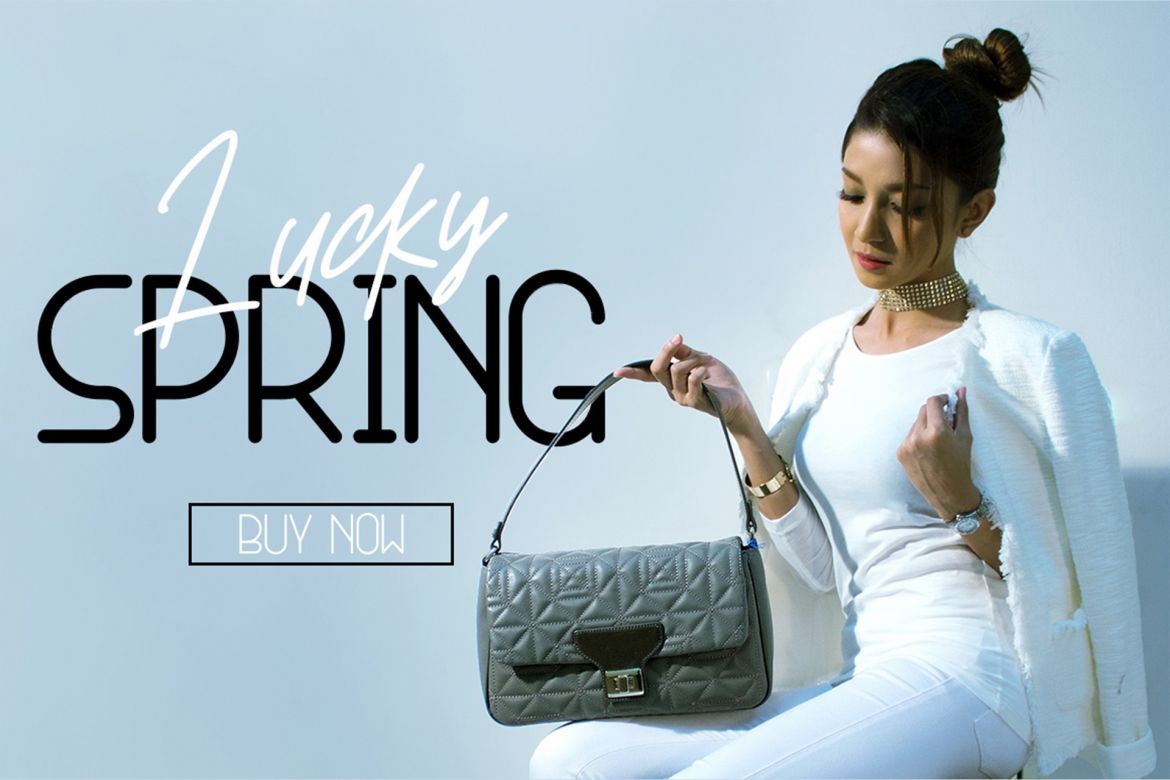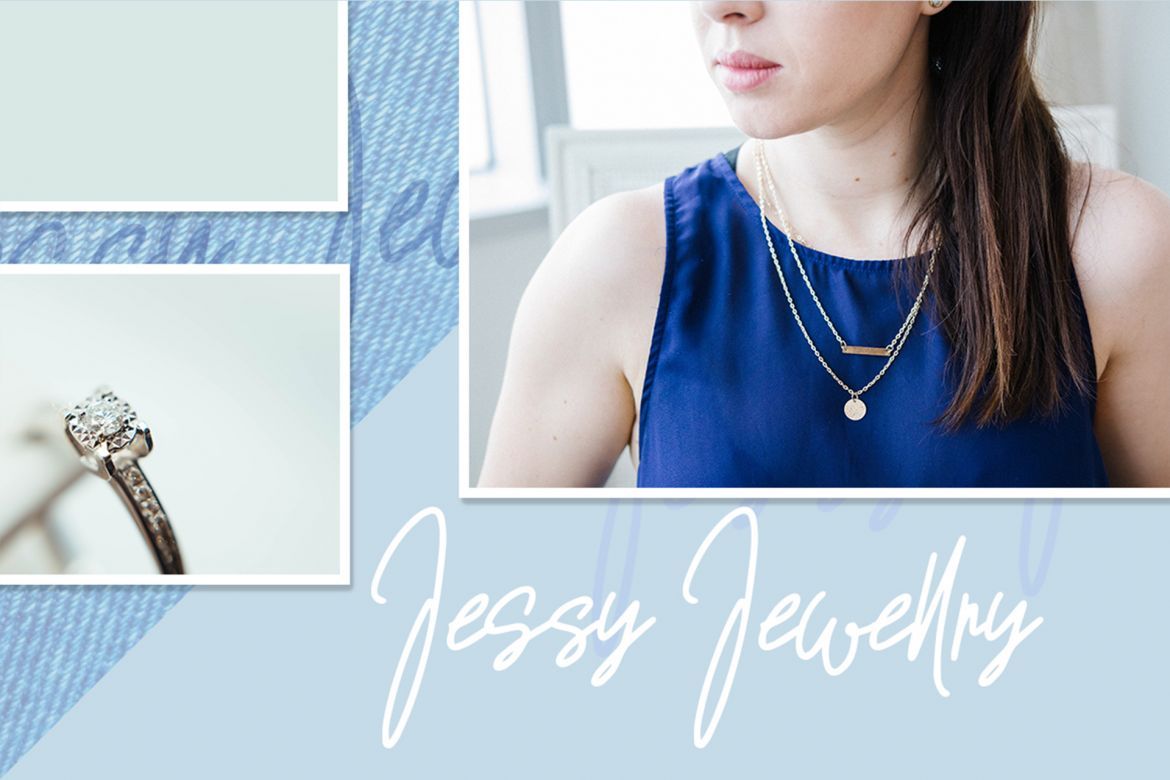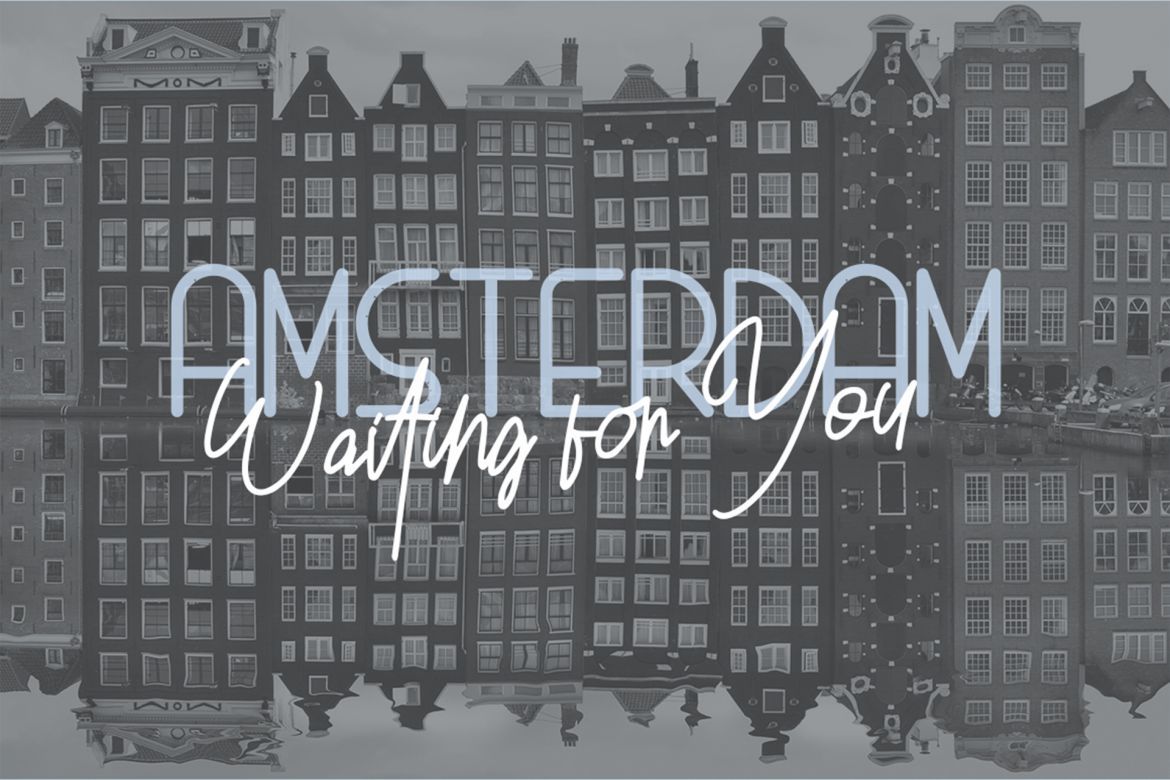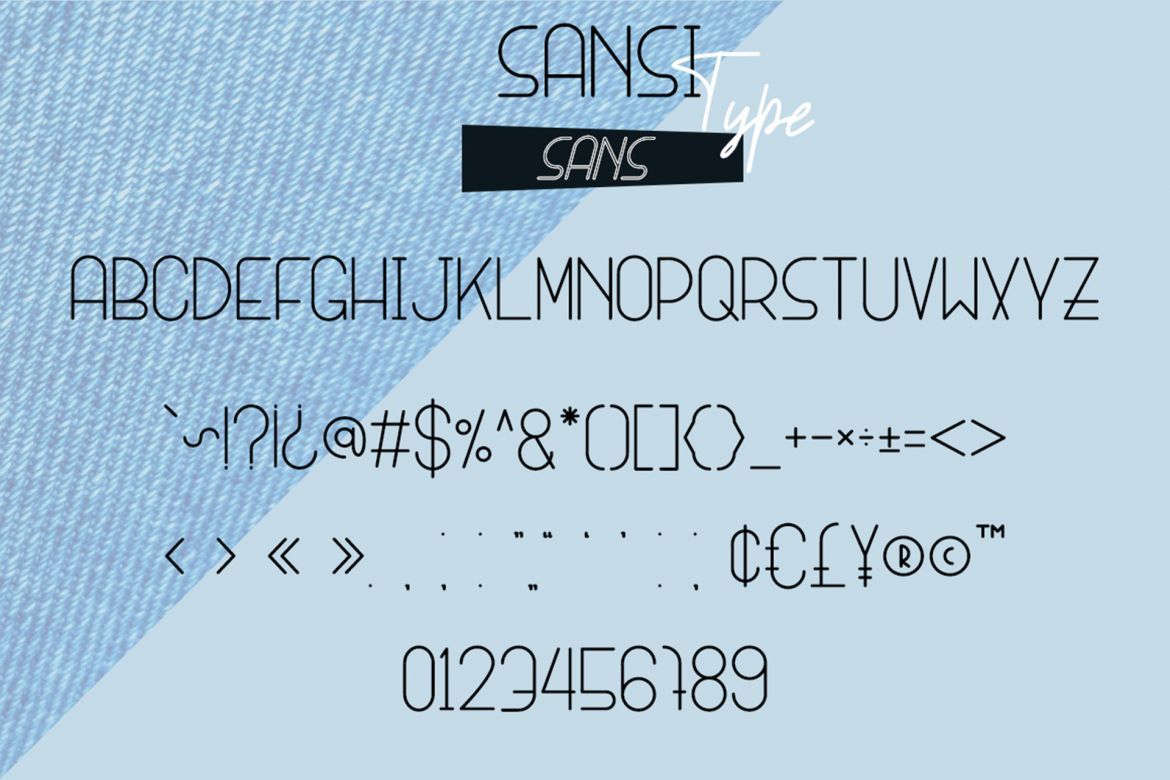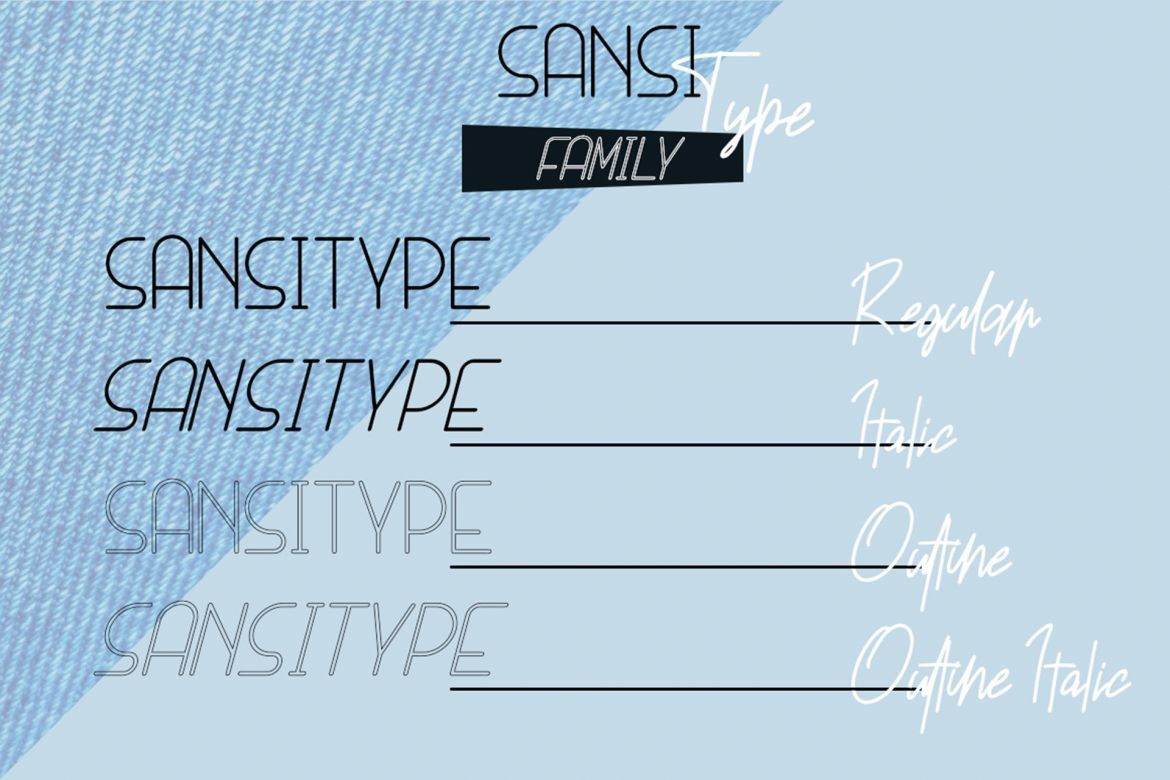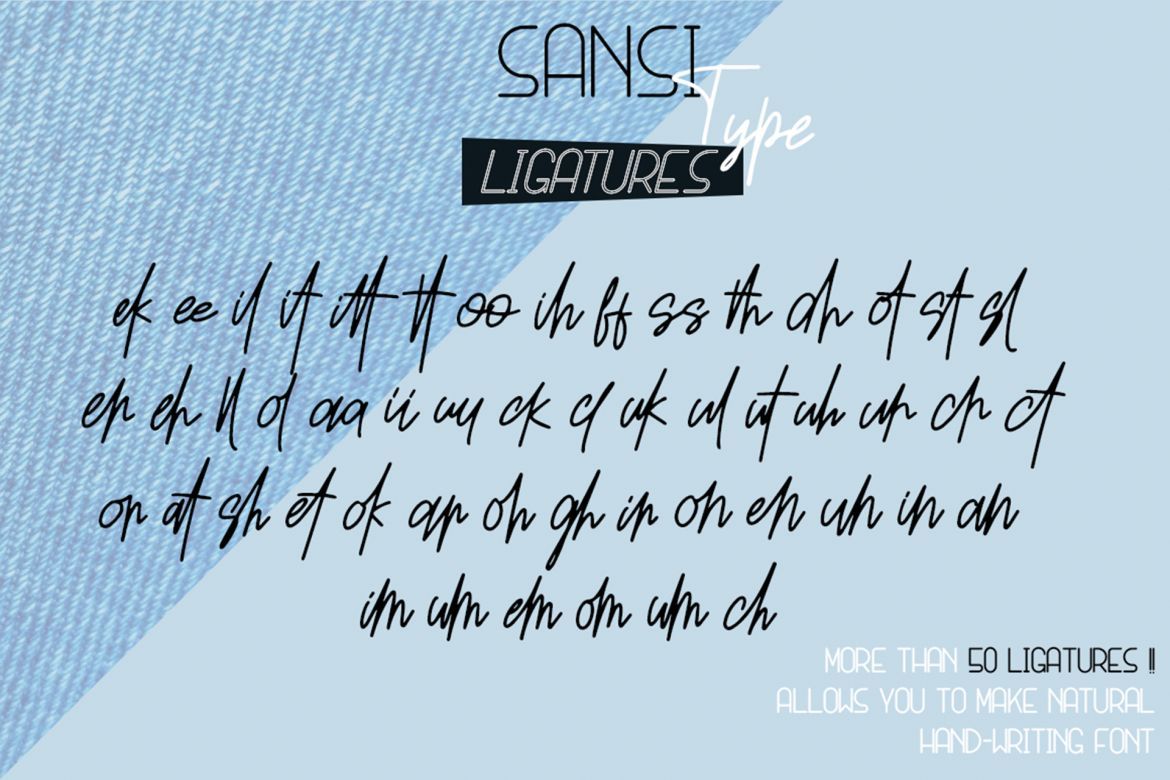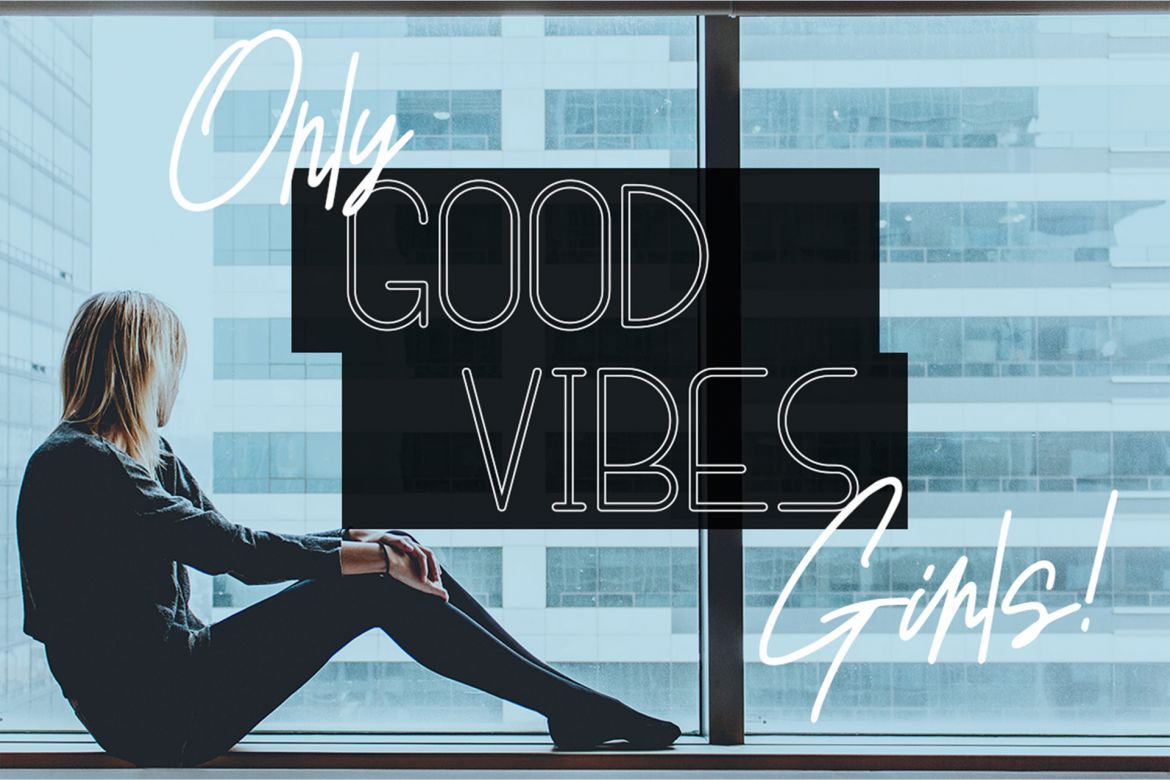
Sansi Type - Font Duo
Sansi Type font duo is simple beautiful font with classy taste, come with script and four style sans serif font variations, opentype feature such as ligatures.
Sansi Type font duo is perfect for photography, watermark, social media posts, advertisements, logos & branding, invitation, product designs, label, stationery, wedding designs, and many other design project.
• 4 family style
• font duo
• more than 50 ligatures